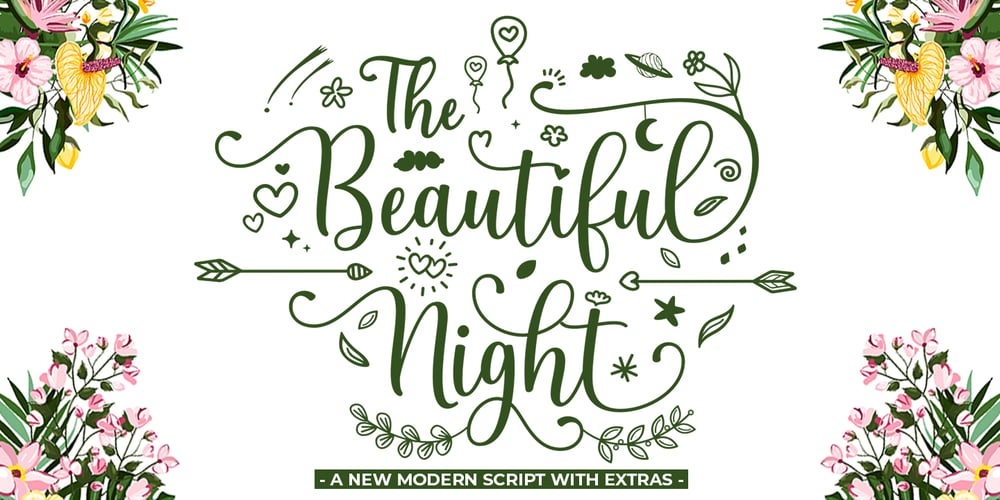
The Beautiful Night Font Family was designed by Muammar Kadafi and published by Attract Studio. The Beautiful Night contains 4 styles and family package options. INTRODUCINGThe Beautiful Night Script & Extras is a modern scripts with handwriting, decorative characters, and basic dance lines! designed to perfectly combine informal, sassy, romantic, sweet scripts, and hand-drawn design elements allow you to create many beautiful typographic designs in an instant, just in time for branding, logos, web design and editorial, branding, prints , invitations, crafts, quotes, and more.The Beautiful Night Script & Extras features OpenType stylistic alternates, ligatures and International support for most Western Languages is included. To enable the OpenType Stylistic alternates, you need a program that supports OpenType features such as Adobe Illustrator CS, Adobe Indesign & CorelDraw X6-X7, Microsoft Word 2010 or later versions.How to access all alternative characters using Adobe Illustrator:https://www.youtube.com/watch?v=XzwjMkbB-wQThe Beautiful Night Script & Extras is coded with PUA Unicode, which allows full access to all the extra characters without having special designing software. Mac users can use Font Book , and Windows users can use Character Map to view and copy any of the extra characters to paste into your favourite text editor/app.How to access all alternative characters, using Windows Character Map with Photoshop: https://www.youtube.com/watch?v=Go9vacoYmBwThanks & Happy Designing!